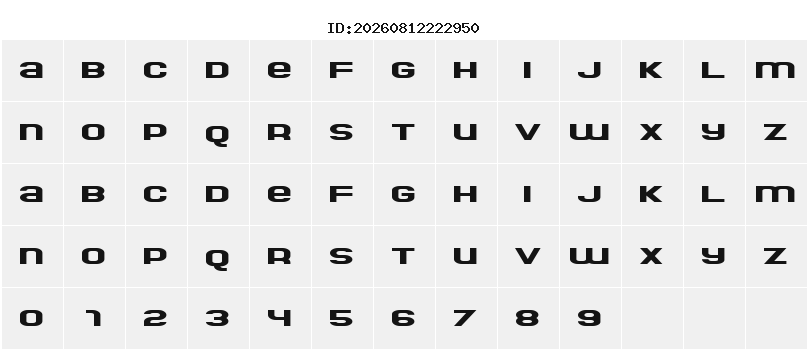
• Font Name: Resurrector
• Full Font Name: Resurrector
About Resurrector.ttf
Resurrector.ttf is a modern, elegant sans-serif font designed for ultimate readability and visual harmony. Perfect for branding, headlines, web design, and print materials.